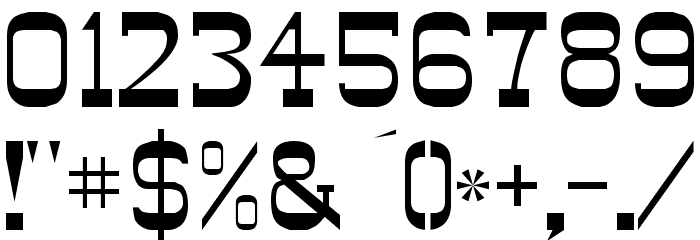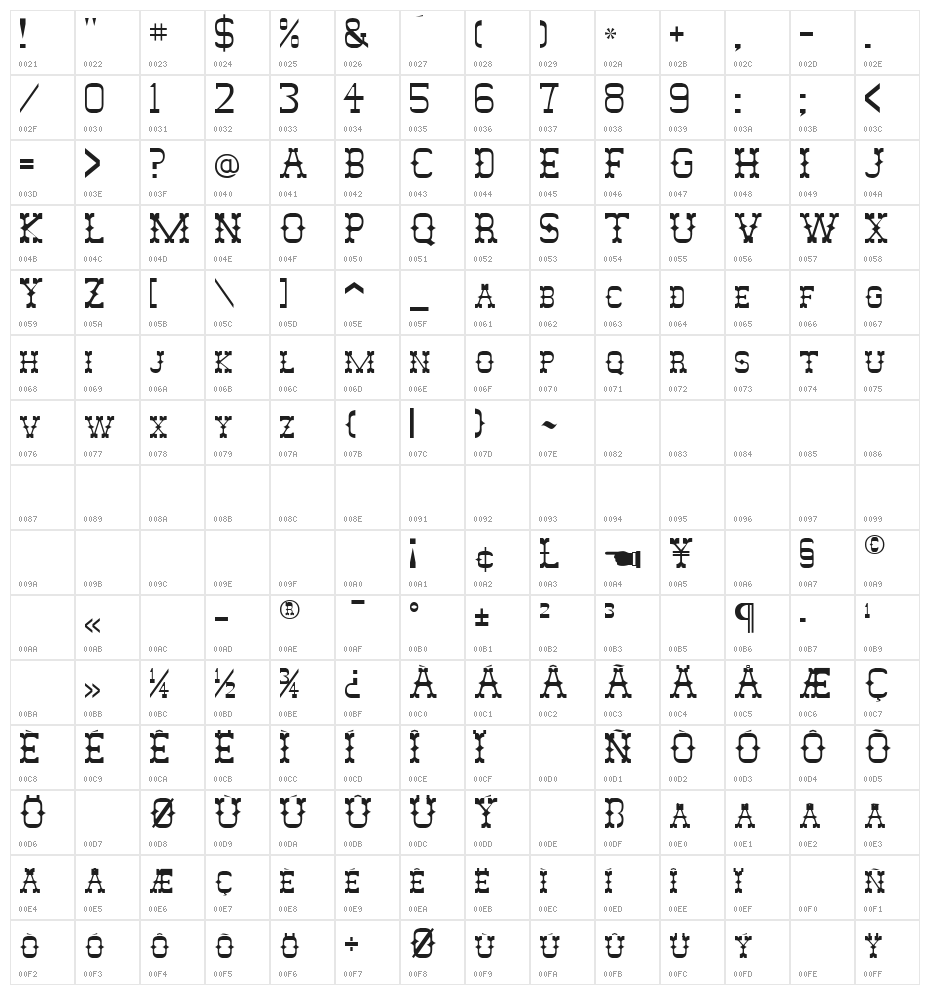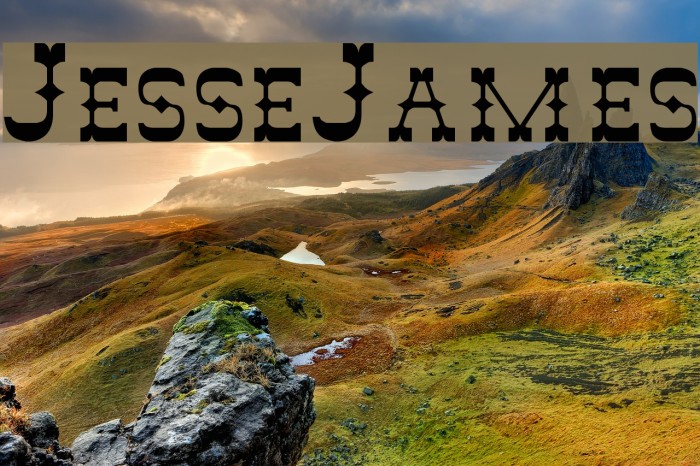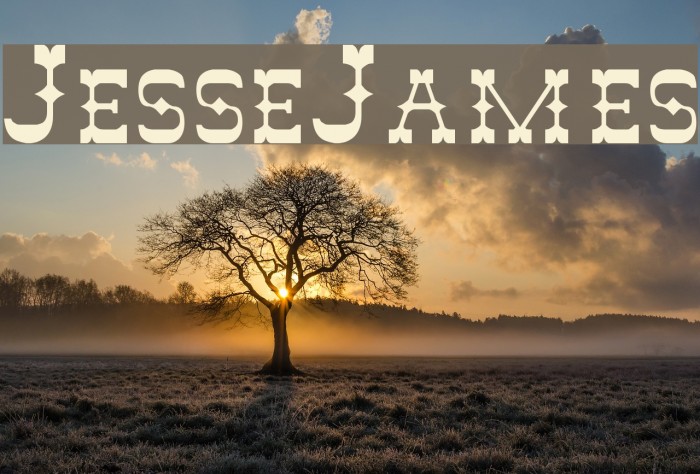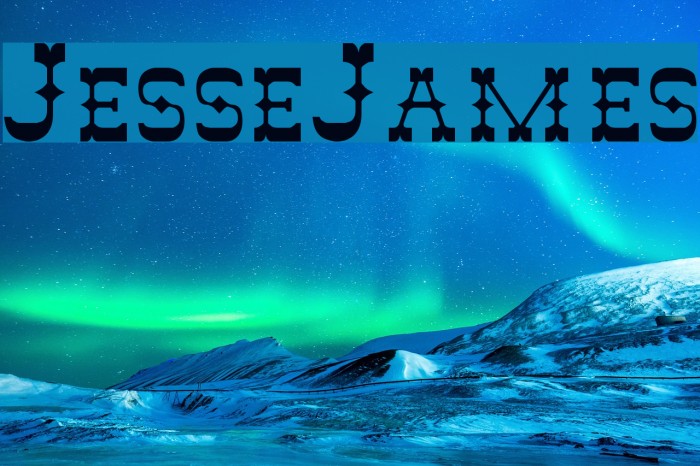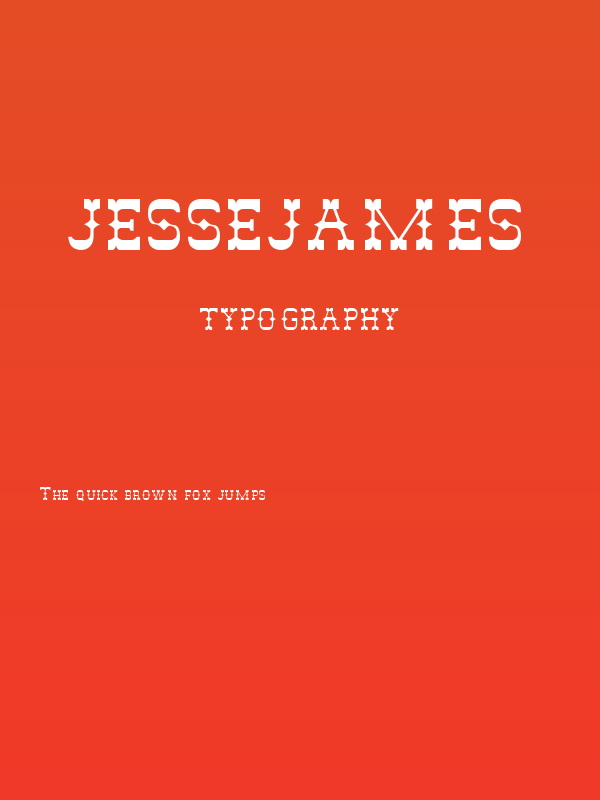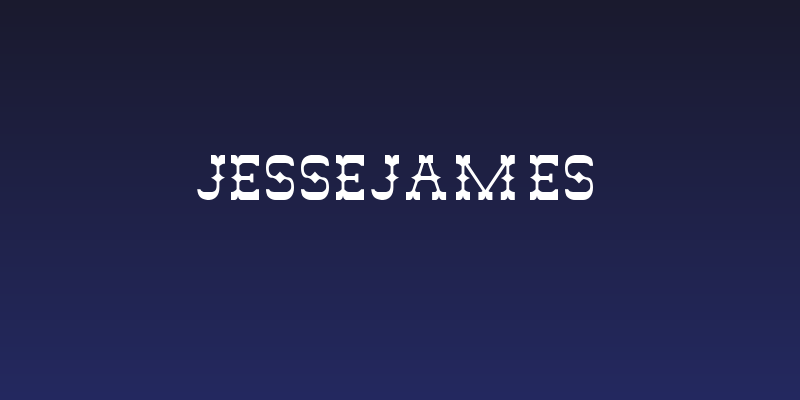
JesseJames Font
JesseJames Description
This font features a bold and decorative style with a distinctive Western flair. The uppercase letters are characterized by sharp, angular serifs and a unique cut-out design that adds a rugged, vintage feel. The numerals and special characters maintain this boldness, ensuring consistency throughout the typeface. The font's strong, geometric shapes make it stand out, ideal for creating eye-catching designs. Its unique style is reminiscent of old Western signage, making it perfect for projects that require a touch of nostalgia or a bold statement.
| Proposed Projects | Ideal for posters, branding, logos, and any design needing a vintage Western theme. |